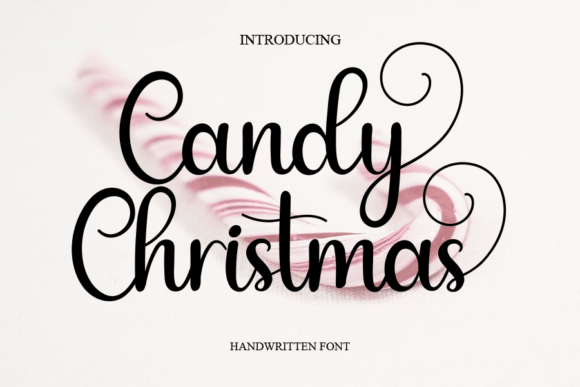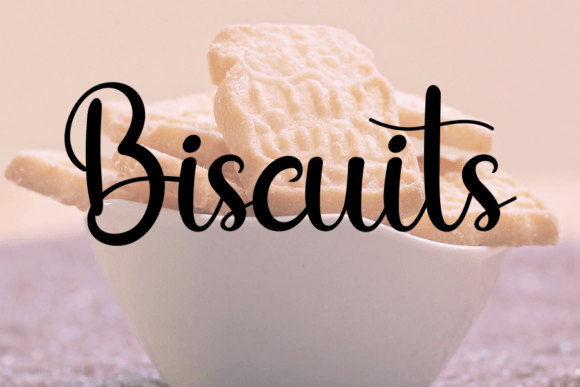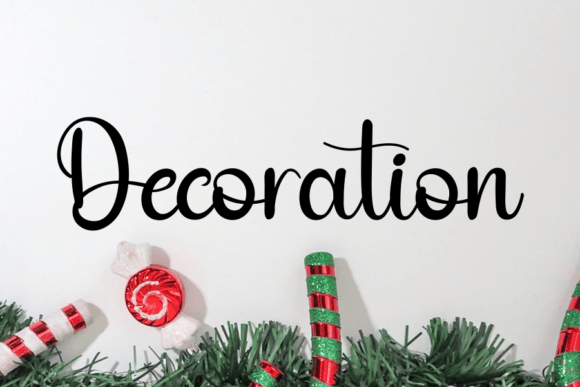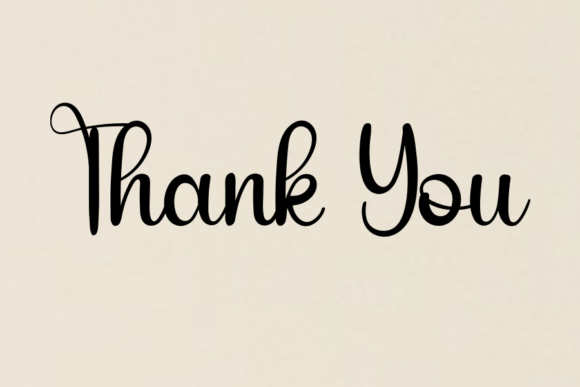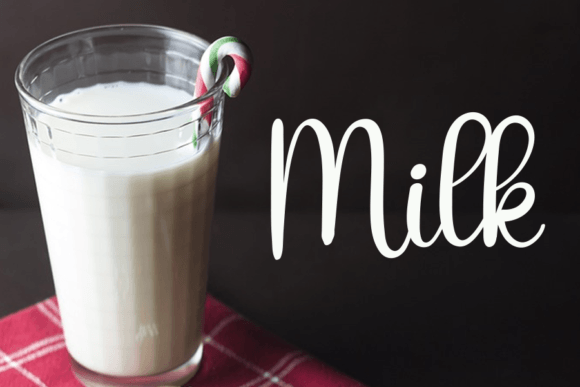
Candy Christmas Font
Candy Christmas Font Download – Sweet Adorable Handwritten Script
The Candy Christmas Font download is a sweet and adorable handwritten typeface designed to bring joy and authenticity to your creative projects. With its playful curves and natural handwritten style, this font is versatile enough to enhance both festive and everyday designs. Whether you’re crafting greeting cards, branding materials, or blog posts, Candy Christmas ensures your work shines with charm.
A Sweet and Adorable Handwritten Style
The Candy Christmas Font download features soft strokes and balanced characters that create a natural handwritten look. Its sweet design conveys warmth and friendliness, making it ideal for projects that need a touch of playfulness and creativity.
Perfect for Greeting Cards and Invitations
From festive holiday cards to birthday invitations, the Candy ChristmasFont download makes your stationery stand out. Its adorable handwritten style adds personality and joy, ensuring your messages leave a lasting impression.
Great for Logos and Branding
The Candy Christmas Font download is also perfect for logos, product packaging, and branding projects. Its approachable handwritten strokes communicate authenticity, making it especially fitting for lifestyle and creative brands.
Versatile for Planners and Headlines
Planners, photo albums, and digital headlines benefit from the Candy Christmas Font download. Its natural handwritten look adapts easily across print and digital platforms, giving your work a polished yet personal feel.
Readability with Festive Charm
While some playful fonts sacrifice readability, the Candy ChristmasFont download maintains clarity. Its clean letterforms ensure text is easy to read while still carrying a joyful and whimsical handwritten touch.
Why Choose Candy Christmas Font?
Among handwritten typefaces, the Candy ChristmasFont download stands out with its sweet and festive personality. It is suitable for both seasonal holiday themes and everyday design projects, making it a versatile font to keep in your collection.
Add Playfulness to Your Creative Projects
Typography sets the mood of your work, and the Candy ChristmasFont download helps you bring charm, joy, and authenticity to your designs. Whether for invitations, branding, or festive cards, this font ensures your projects sparkle with creativity.